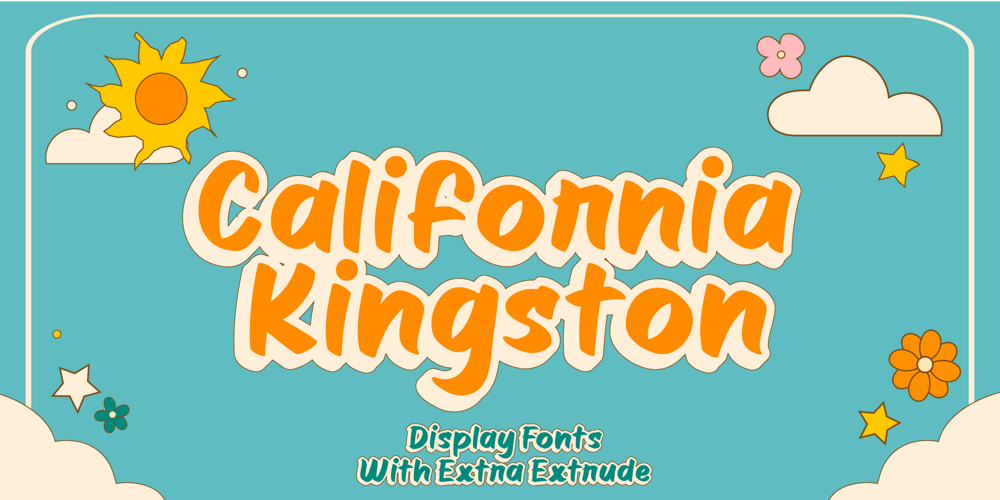
California Kingston
California Kingston font
California Kingston Font Family was designed by Stefie Justprince and published by Crumphand. California Kingston contains 2 styles and family package options. California Kingston display is a typography design product that is specifically created for use in the headlines, titles, or other prominent text elements of a design. This typeface is often characterized by its bold, attention-grabbing appearance and its ability to make text stand out on a page.The main goal of a California Kingston font display is to create an impact and draw the viewer’s attention. This is typically achieved through the use of thicker and more pronounced strokes, unique shapes and design elements, and often, a more stylized appearance.California Kingston displays can be used in a variety of design projects, including posters, logos, packaging, advertisements, and more. They are often paired with complementary fonts to create a well-designed and cohesive visual identity.When choosing a California Kingston font display, it is important to consider the project’s overall aesthetic and message, as well as the intended audience. It’s also essential to ensure that the font is legible and easy to read, even at smaller sizes.Overall, a California Kingston font display is an excellent way to make a bold statement in a design and to capture the viewer’s attention.